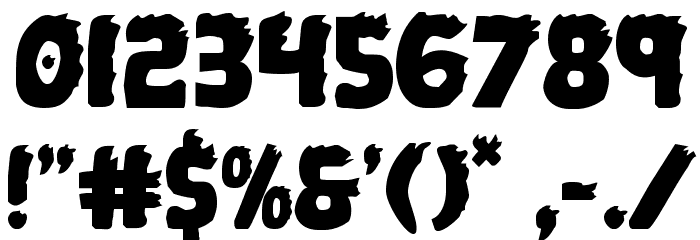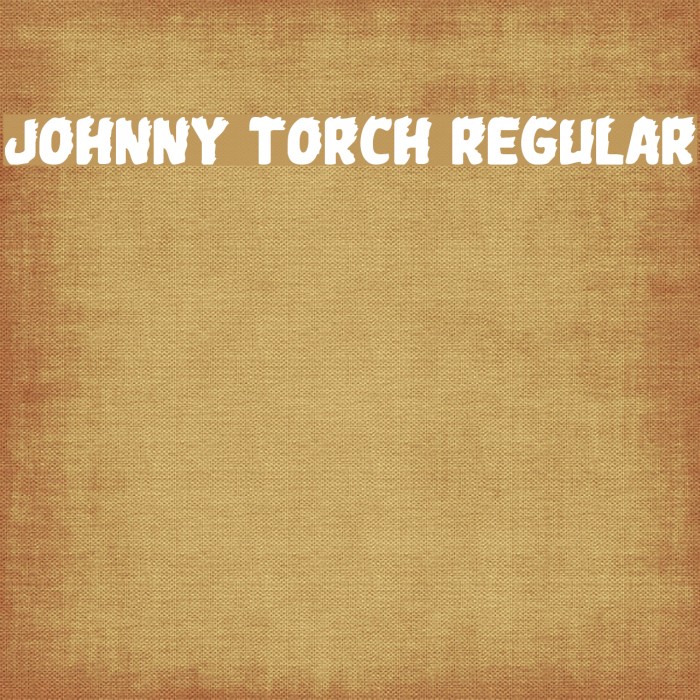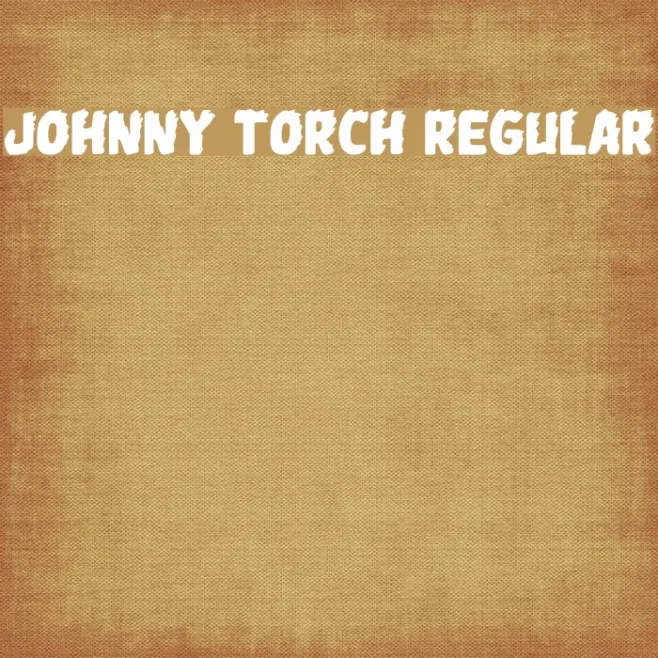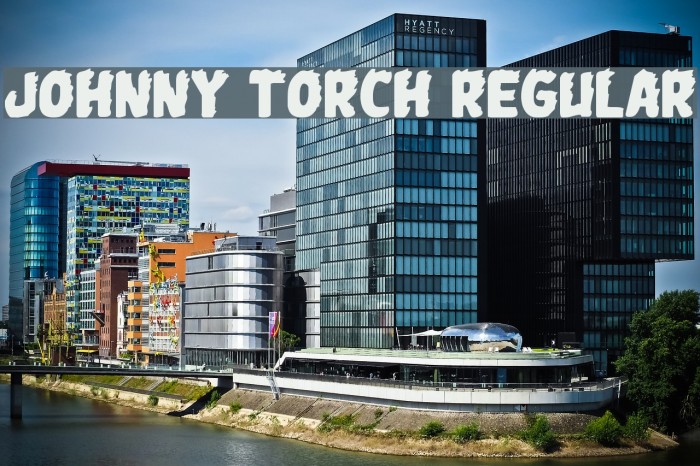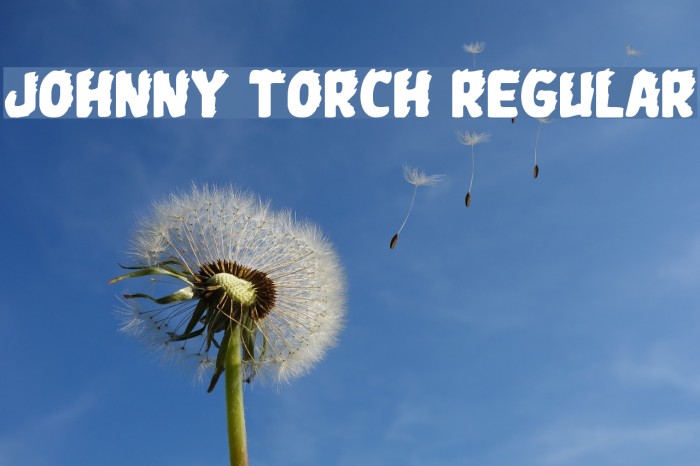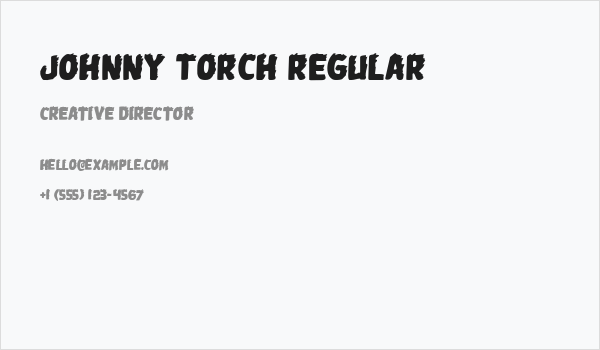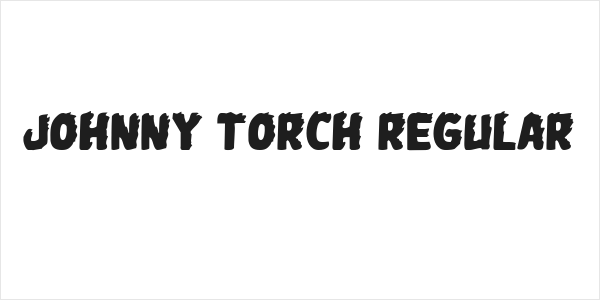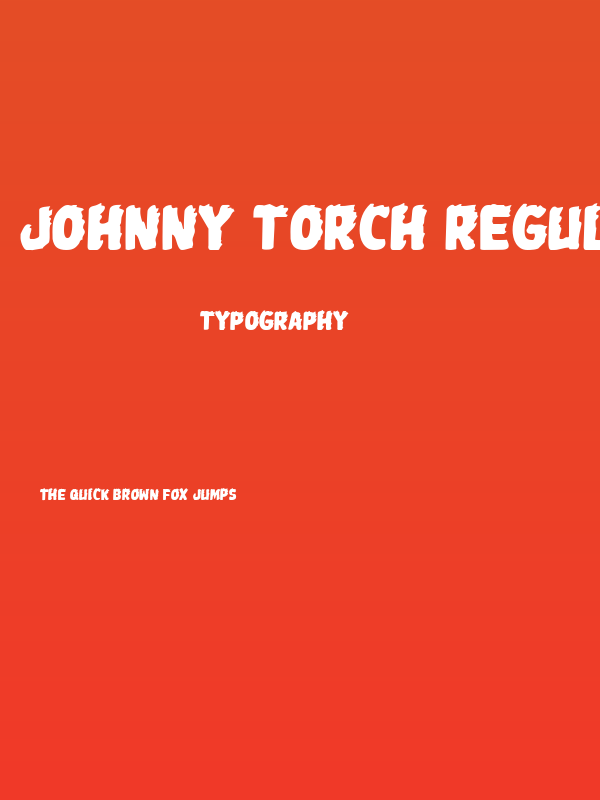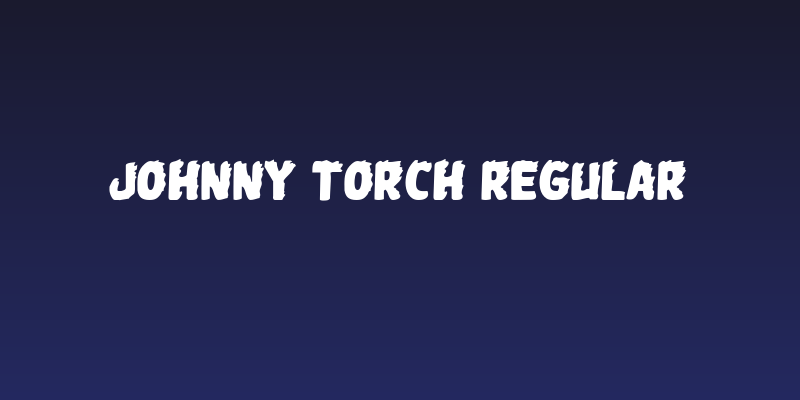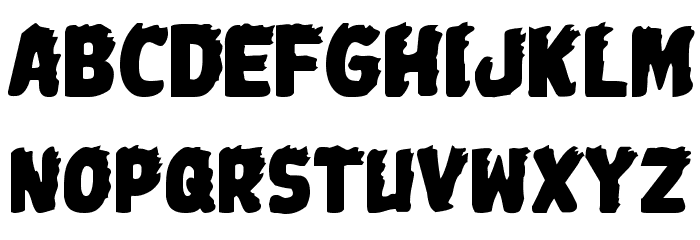
Johnny Torch Regular Font
Johnny Torch Regular Description
This font features a bold and dynamic style with a rugged, flame-like texture that gives each character a fiery appearance. The uppercase and lowercase letters maintain a consistent width and height, creating a uniform look across the alphabet. The numbers and special characters are designed with the same boldness and texture, ensuring a cohesive appearance throughout. The font's unique design makes it stand out, with each character appearing as if it's been carved from a burning material, adding a sense of movement and energy.
| Proposed Projects | Ideal for projects that require a dramatic and eye-catching font, such as event posters, video game titles, or branding for extreme sports. |